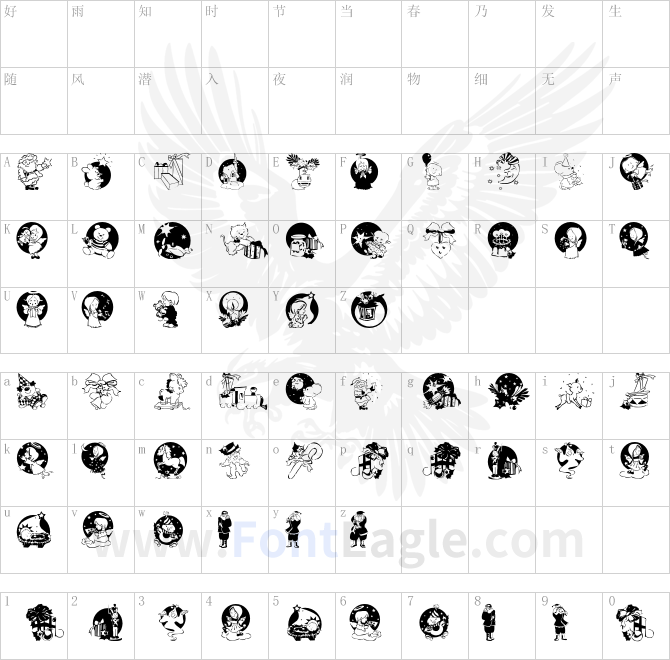
- Font name:XmasPromotionsSymbols
- Font Subfamily ID:XmasPromotionsSymbols
- Font Full Name:XmasPromotionsSymbols
- Postscript:XmasPromotionsSymbols